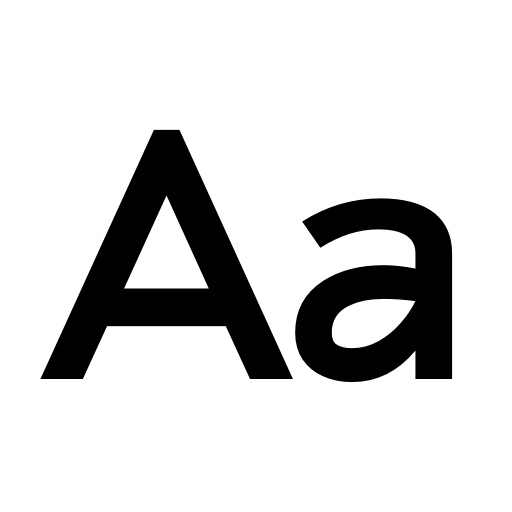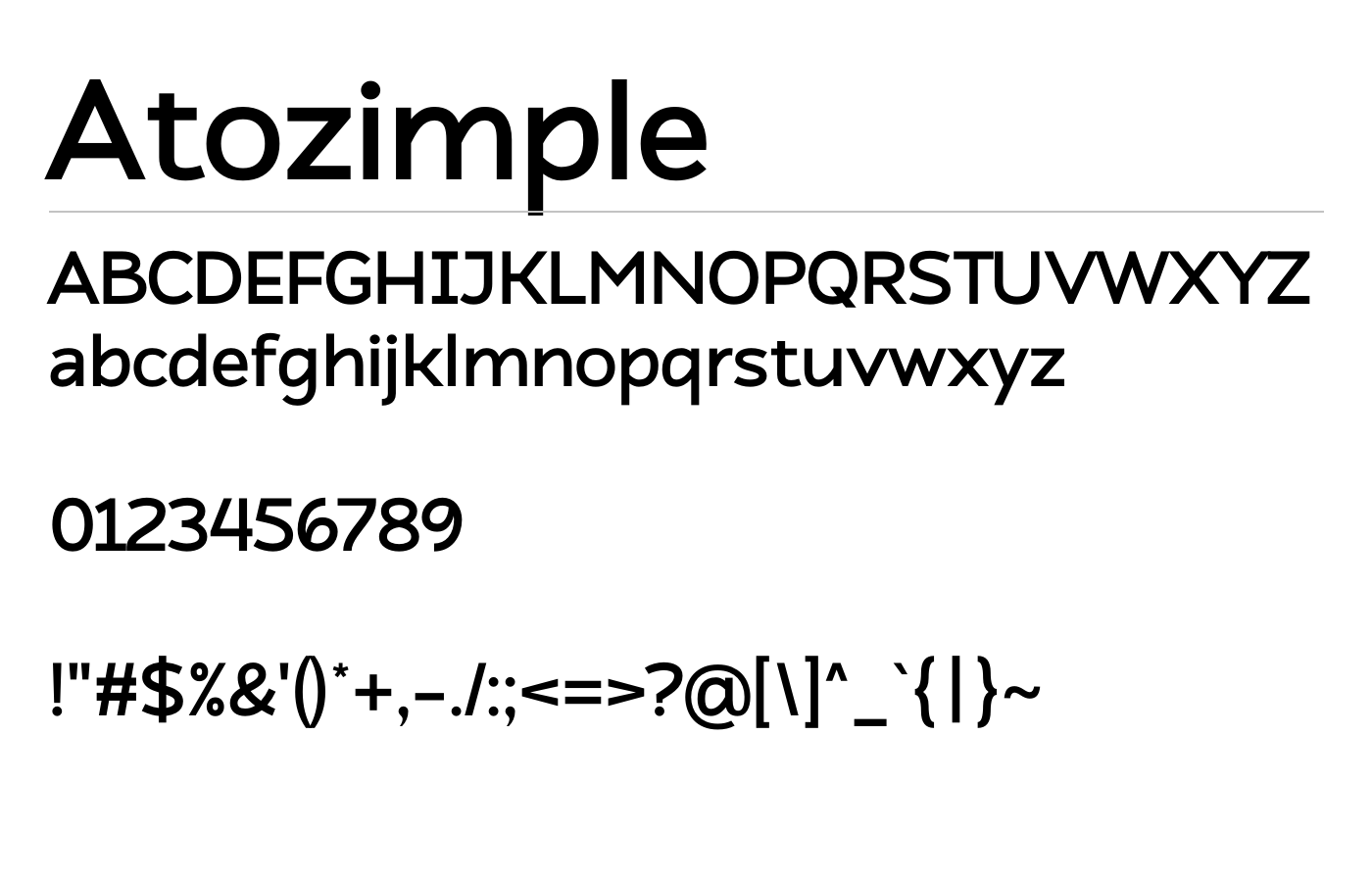
Atozimple is a clean and modern sans serif font with a balanced, regular weight and a neutral, friendly appearance. It features simple, geometric letterforms with a medium x-height and well-proportioned spacing, making it highly readable and versatile. Ideal for branding, editorial design, and web use, this font combines clarity with a straightforward, approachable style.
Atozimple Font